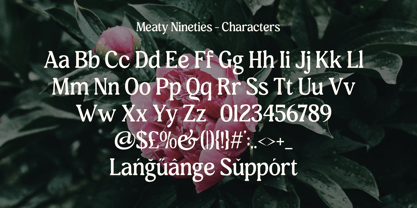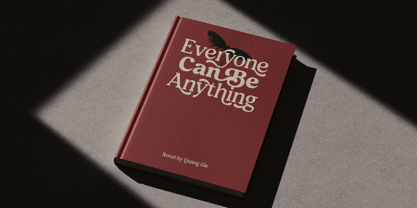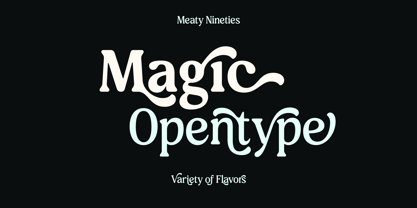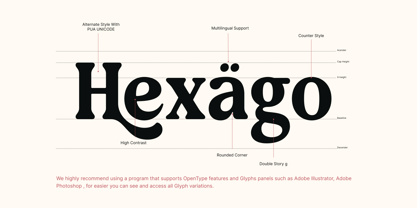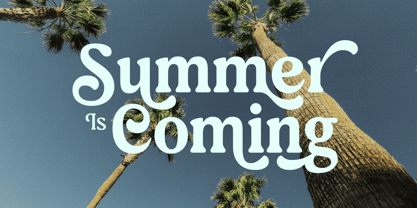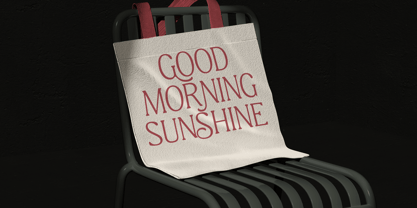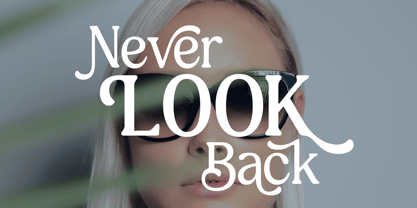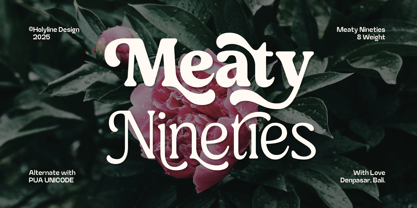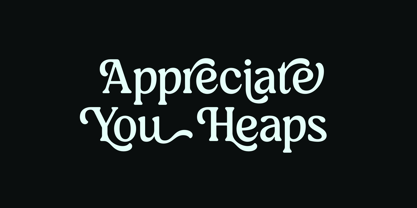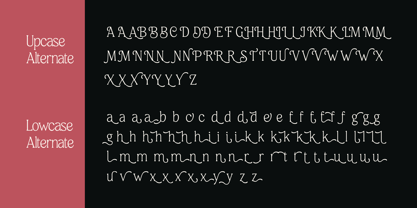
Meaty Nineties
The Meaty Nineties Font Family was designed by Bagus Beratha Wijaya and published by holyline design. Meaty Nineties contains 8 styles and family package options. More about this family
Meaty Nineties is a bold and lively serif display font that captures the essence of vintage typography with a modern twist. Inspired by classic magazine typefaces and old-school aesthetics, this font brings a nostalgic yet contemporary feel to any project. With 8 weights ranging from thin to extra bold, Meaty Nineties offers versatility for both delicate details and striking headlines. It also includes a wide range of alternates, allowing for effortless customization to create dynamic curves and beautiful letter combinations. Ideal for editorial layouts, branding, and retro-inspired designs, Meaty Nineties blends playfulness and elegance, making it the perfect choice for those looking to infuse their work with a touch of timeless charm.